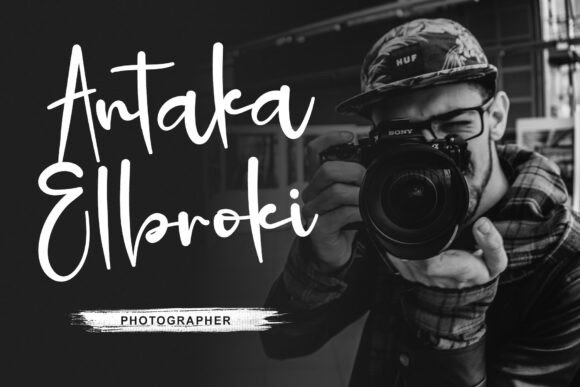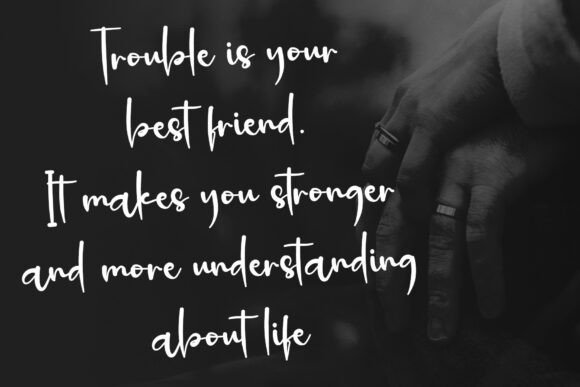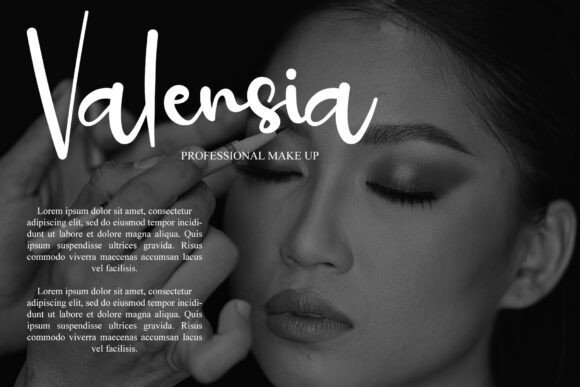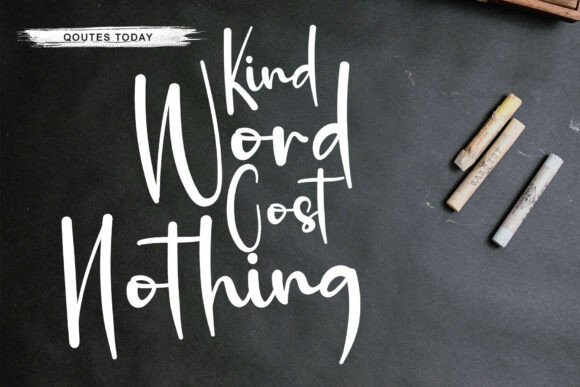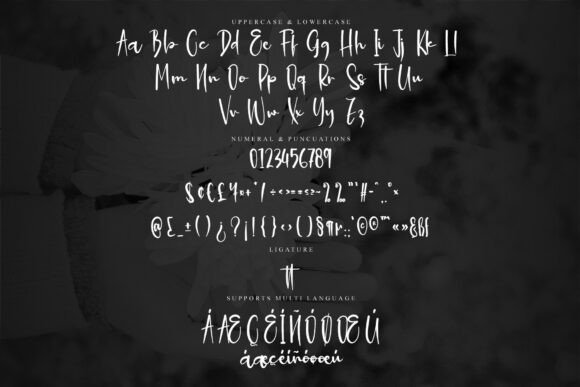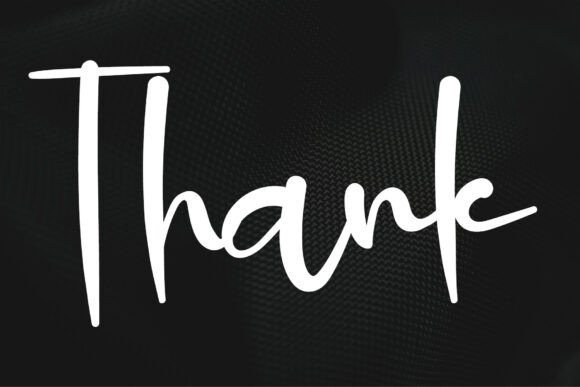
The Designer’s Delight: A Deep Dive into Brick Font
I’ll never forget the time I was working on a branding project for a high-end boutique hotel. My client wanted a font that exuded elegance, sophistication, and a touch of modern whimsy. I scoured the internet, tried out dozens of fonts, but nothing seemed quite right. That was until I stumbled upon Brick Font. ✨
Its beautifully crafted display handwriting style blended elegance with a modern, artistic touch, making it the perfect fit for my client’s project. In this article, I’ll share my experience with Brick Font, its features, and how to make the most of it in your designs.
An Honest Review of Brick Font
- ✨ Elegant and sophisticated: Brick Font’s flowing strokes and well-balanced curves create a refined yet approachable feel.
- ✅ Perfect for display text: Its unique character makes it ideal for headings, titles, and other display text.
- 💡 Artistic and modern: The font’s artistic touch adds a touch of personality to any design.
While Brick Font is an excellent choice for many designs, there are a few things to keep in mind: 🤔
- ⚠️ Limited use for body text: Due to its elegant and artistic nature, Brick Font might not be the best choice for large blocks of body text.
- ⚠️ Some characters may require manual kerning: As with any font, some characters may require manual kerning to achieve optimal results.
- Experiment with OpenType features, such as Stylistic Alternates, to add more personality to your text.
- Explore the Glyphs panel to access OpenType features, such as ligatures and stylistic alternates.
The Story Behind Brick Font
Brick Font was designed by a team of creatives who wanted to create a font that blended elegance with a modern, artistic touch. Inspired by traditional calligraphy and modern digital art, Brick Font is the result of careful craftsmanship and attention to detail.
Q: What type of designs is Brick Font best suited for?
A: Brick Font is perfect for designs that require a touch of elegance and sophistication, such as luxury branding, high-end product packaging, and formal event materials.
Q: Can I use Brick Font for body text?
A: While Brick Font is beautiful, it’s not ideal for large blocks of body text. Its elegant and artistic nature makes it better suited for display text and headings.
Q: Does Brick Font support OpenType features?
A: Yes, Brick Font supports OpenType features, including stylistic alternates, ligatures, and glyphs.